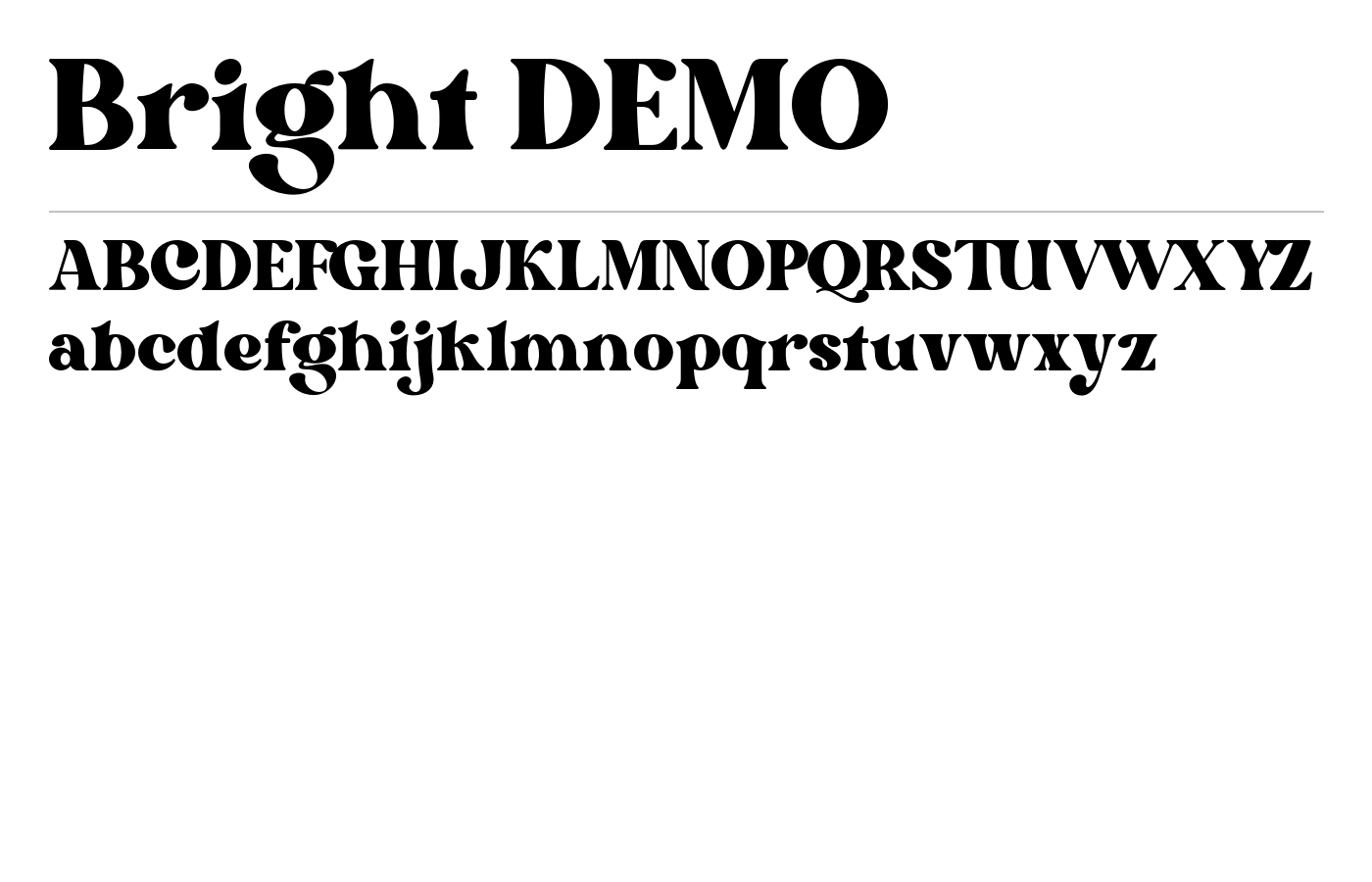
Bright DEMO is a bold serif font with a modern, slightly playful feel created by its thick, bracketed serifs and pronounced stroke contrast. Its upright, sturdy letterforms with unique details like the curled tail on the “g” and the swashed ampersand give it character, making it perfect for branding, editorial headlines, or logos that want to stand out while maintaining a classic yet approachable vibe. This font works well where a strong, confident typeface is needed with a touch of elegance and personality.
Bright DEMO Font
About Bright DEMO Font
| Font family | Bright DEMO Font |
| Designer | Jamaludin Ahmad Sahestya Dharma |